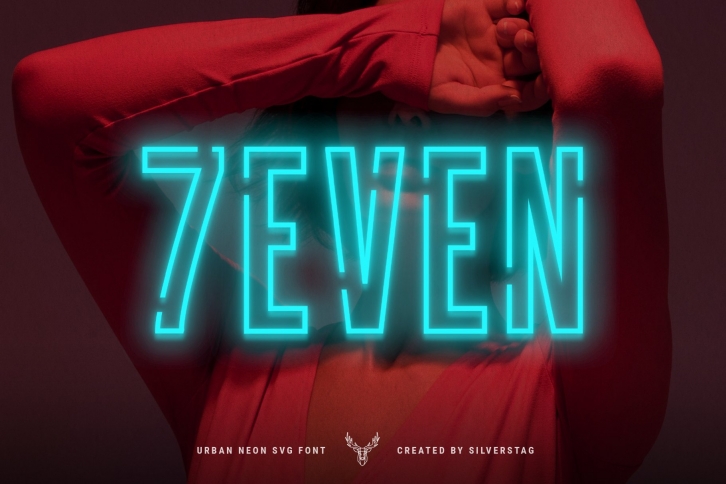
7EVEN SVG - Urban Neon Font Pack Download
7EVEN SVG is a gorgeous font that was realeased on May 11, 2020. The font can be used in many style contexts and design environments. Perfect for invitations, magazines, websites, logos, and more! It was designed by SilverStag and the file size is 20.25 MB. Thanks for checking out this font!